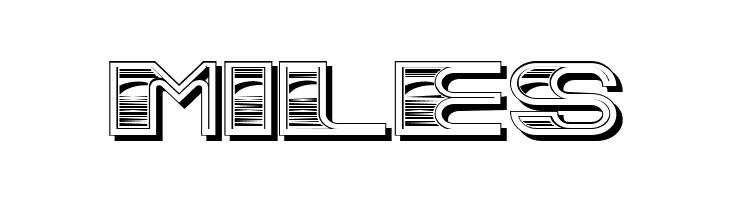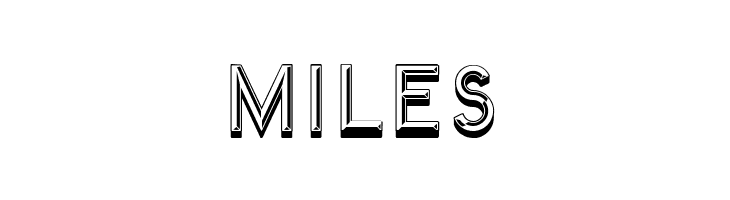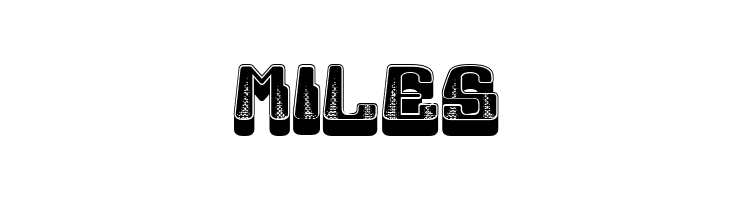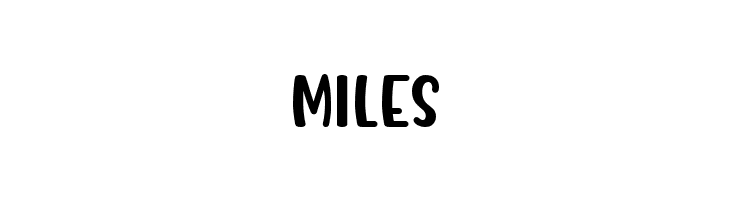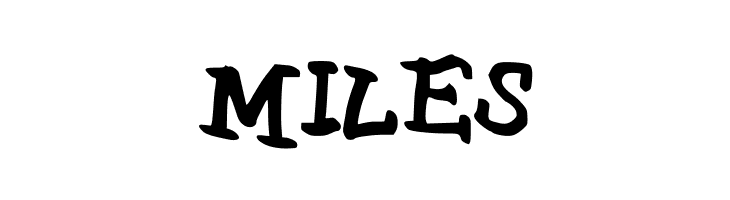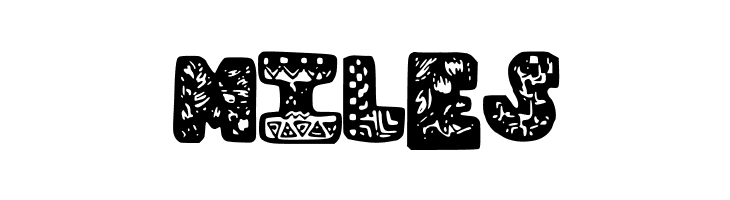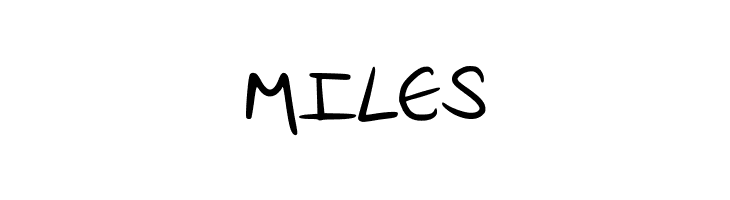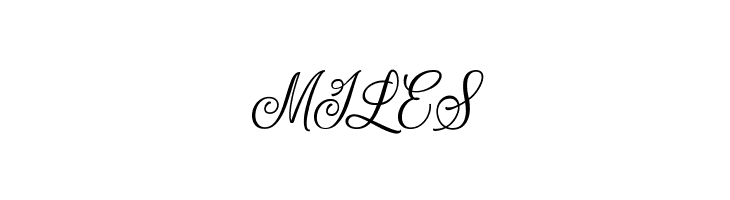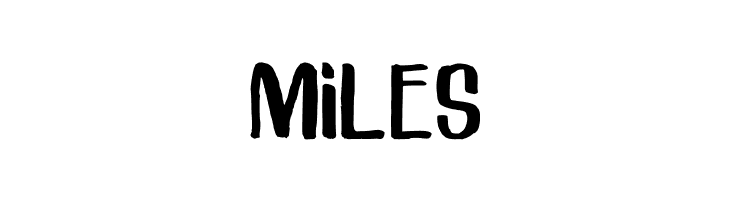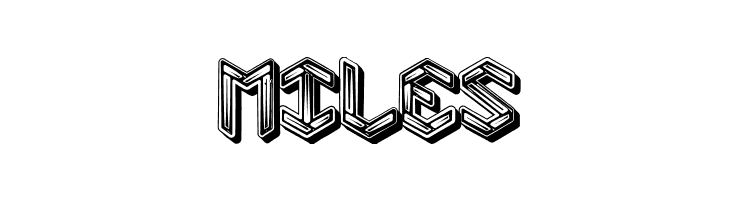
( Cooldesignlab - Kurniadi Saputra - creativemarket.com/cooldesignlab?u=cooldesignlab )
An elegant and ornate script font with intricate loops and swirls.
( aldedesign - Alde Saputro - creativemarket.com/aldedesign?u=aldedesign )
An elegant cursive font with flowing, intricate details and graceful curves.
( aldedesign - Alde Saputro - creativemarket.com/aldedesign?u=aldedesign )
A sophisticated, slanted script font with flowing, interconnected letters and elegant flourishes.
( Rebecca Johnson )
A playful, casual handwritten font with a friendly and informal style.
( LetterStuff Typefoundry )
A bold, playful handwritten font with thick strokes and a casual style.
A bold, dynamic script font with sweeping curves and dramatic flourishes.
( Qkila - Quentin Aquila - www.creativefabrica.com/designer/qkila/ )
A bold, geometric font with a three-dimensional, futuristic design.
( Qkila - Quentin Aquila - www.creativefabrica.com/designer/qkila/ )
A bold, three-dimensional geometric font with a futuristic style.
( Qkila - Quentin Aquila - www.creativefabrica.com/designer/qkila/ )
A bold, 3D geometric font with a shadow effect, perfect for modern designs.
A bold, decorative font with a three-dimensional, layered design.
( Jaz - www.geocities.com/athens/pantheon/5812/carrollfont/ )
A playful handwritten font with a cursive style and consistent stroke width.
( Fonts by Alexis Hunt )
A playful, handwritten font with tall, narrow letters and a casual style.
A bold, geometric font with a modern and edgy design.
( Fonts by Ley Lm )
A playful, handwritten font with a casual and informal style.
( Fonts by Nirmala Creative )
A playful, rounded font with a bold and friendly appearance.
( Fonts by Nirmala Creative )
A playful, rounded font with a handwritten style.
A playful, cursive font with elegant loops and decorative swashes.
A bold, three-dimensional font with a modern and retro feel.
( Fonts by notfon1234 )
A playful, hand-drawn style font with bold, uneven strokes.
( IceDragon )
A playful, hand-drawn font with a textured, whimsical style.
A bold, cursive script font with a lively and expressive style.
A playful, bold outline font with rounded edges and consistent strokes.
A bold, cursive font with a playful and energetic style.
A bold, decorative font with a textured, vintage appearance and three-dimensional effect.
( Monica T. - monicagalaxy.info )
A playful, hand-drawn font with irregular strokes and a whimsical style.
A playful, handwritten font with tall, narrow letterforms and smooth strokes.
A playful, bold script font with a hand-drawn, whimsical style.